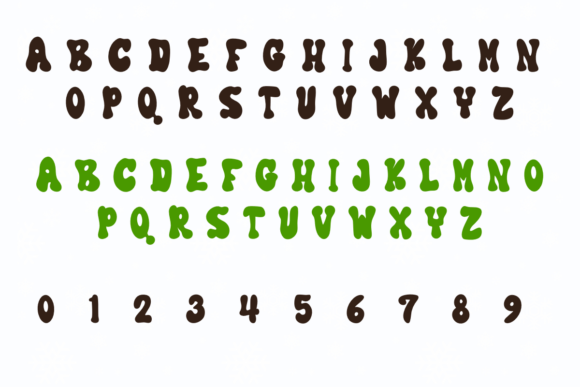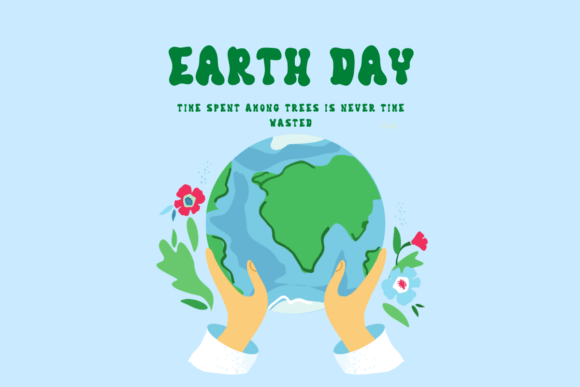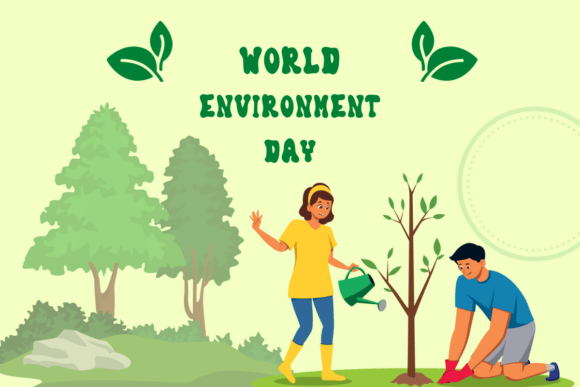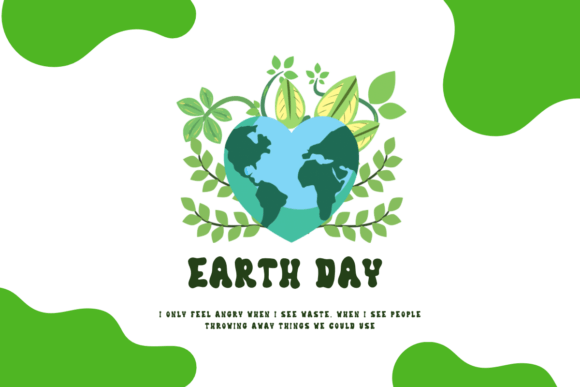
Introducing Earth Day Font: Friends – A Natural Display Font for Creative Expression
As we celebrate Earth Day, we’re reminded of the importance of sustainability, eco-friendliness, and creativity. For designers, crafters, and writers, finding the right font can make all the difference in bringing their ideas to life. That’s where Earth Day Font: Friends comes in – a natural display font that’s perfect for taking notes, writing a diary, or making greeting cards. But its uses don’t stop there!
What is Earth Day Font: Friends?
Earth Day Font: Friends is a unique, hand-crafted font that’s inspired by the natural world. Its earthy, organic feel makes it perfect for projects that require a personal touch. Whether you’re a designer, crafter, or writer, this font is sure to inspire your creativity and help you express yourself in a meaningful way.
Uses for Earth Day Font: Friends
While Earth Day Font: Friends is ideal for:
- Taking notes: Add a personal touch to your notes and journals with this beautiful font.
- Writing a diary: Make your diary entries feel like a treasured keepsake with Earth Day Font: Friends.
- Making greeting cards: Create one-of-a-kind greeting cards that will stand out from the crowd.
But that’s not all! Earth Day Font: Friends can also be used for a wide range of other design projects, including:
- Banners: Create eye-catching banners for events, promotions, or celebrations.
- Content: Add a touch of personality to your blog posts, articles, or social media content.
- Mugs: Design unique and personalized mugs that make perfect gifts or promotional items.
- Cards: Create custom cards for birthdays, holidays, or special occasions.
- Shirts: Design t-shirts, hoodies, or other apparel that showcases your personality or brand.
- Stationery: Add a personal touch to your letterhead, invoices, or packaging.
- Social media posts: Stand out on social media with eye-catching graphics and typography.
Why Choose Earth Day Font: Friends?
So why choose Earth Day Font: Friends over other fonts? Here are just a few reasons:
- Unique and versatile: This font is perfect for a wide range of projects, from personal to professional.
- Easy to read: Earth Day Font: Friends is clear, legible, and easy to read, making it perfect for body text or headings.
- Eco-friendly: This font is inspired by the natural world, making it a great choice for eco-friendly designs or Earth Day projects.
- High-quality: Earth Day Font: Friends is a high-quality font that’s been carefully crafted to ensure consistency and precision.
Tips for Using Earth Day Font: Friends
Here are a few tips for getting the most out of Earth Day Font: Friends:
- Experiment with sizes: Try using Earth Day Font: Friends in different sizes to create visual interest and hierarchy.
- Pair with other fonts: Combine Earth Day Font: Friends with other fonts to create a unique and eye-catching typography combination.
- Use for headlines and body text: Earth Day Font: Friends is perfect for both headlines and body text, making it a versatile choice for a wide range of projects.
Earth Day Font: Friends is a natural display font that’s perfect for designers, crafters, and writers who want to add a personal touch to their projects. With its unique, earthy feel and versatility, this font is sure to inspire your creativity and help you express yourself in a meaningful way. So why not give Earth Day Font: Friends a try today and see what amazing creations you can come up with?